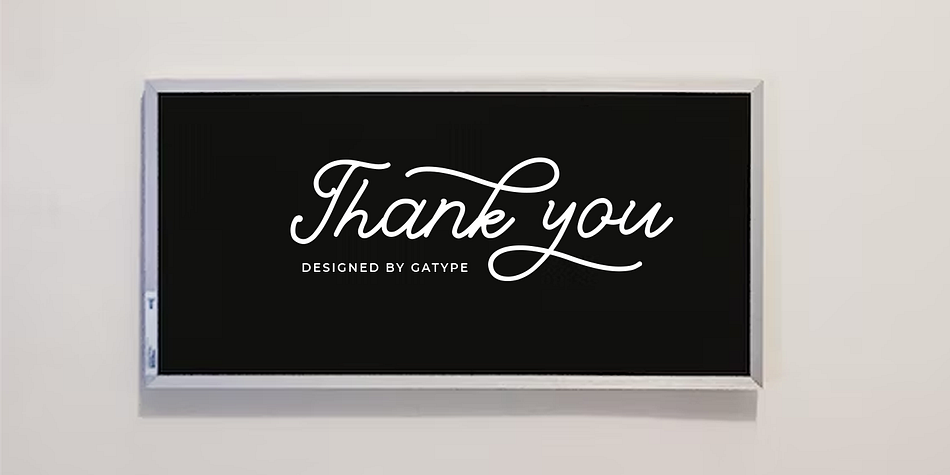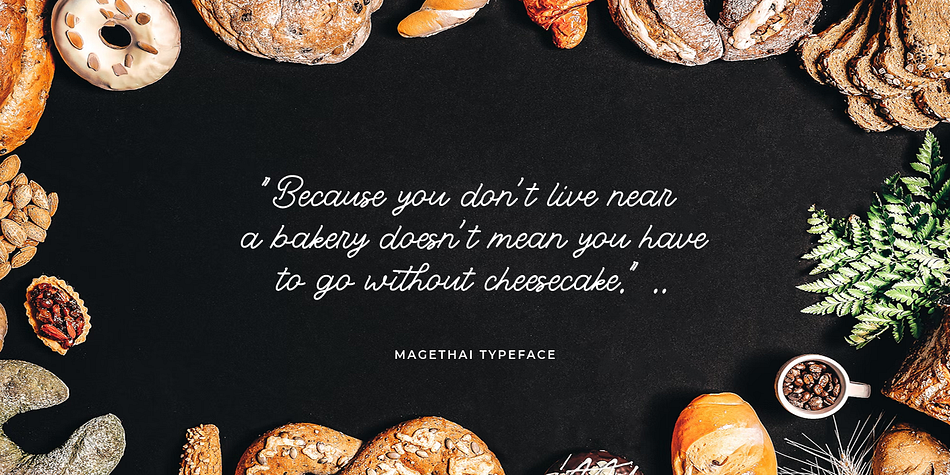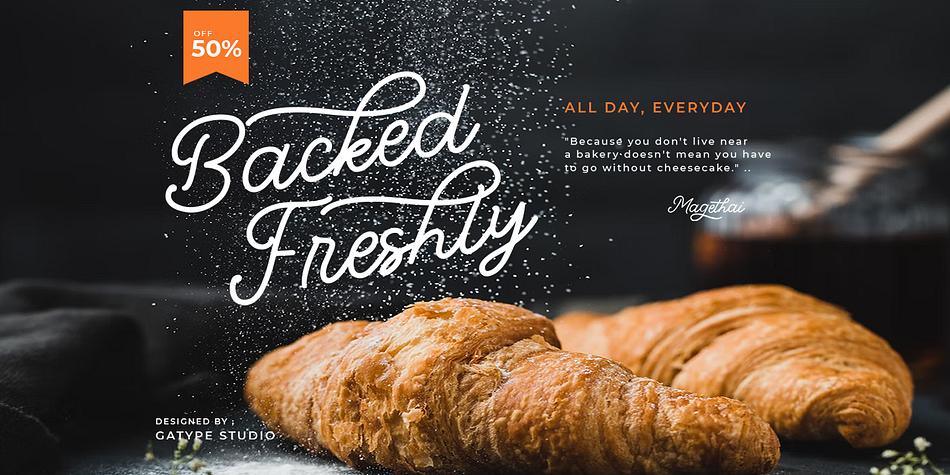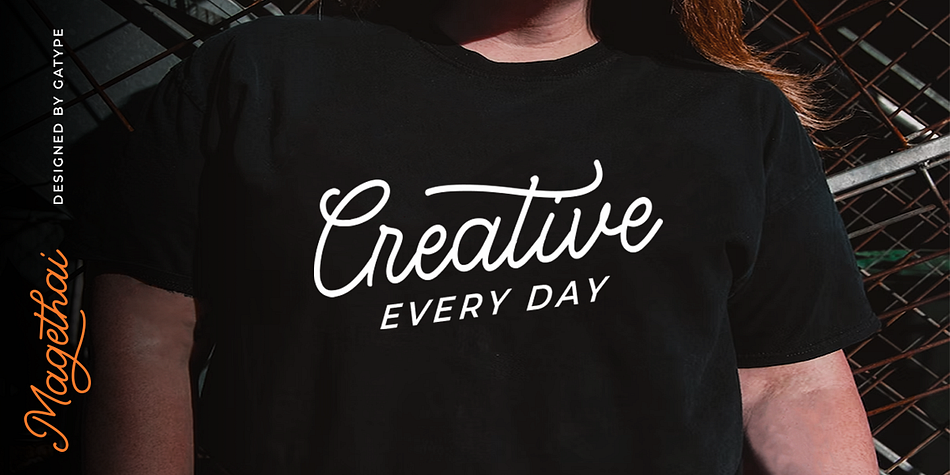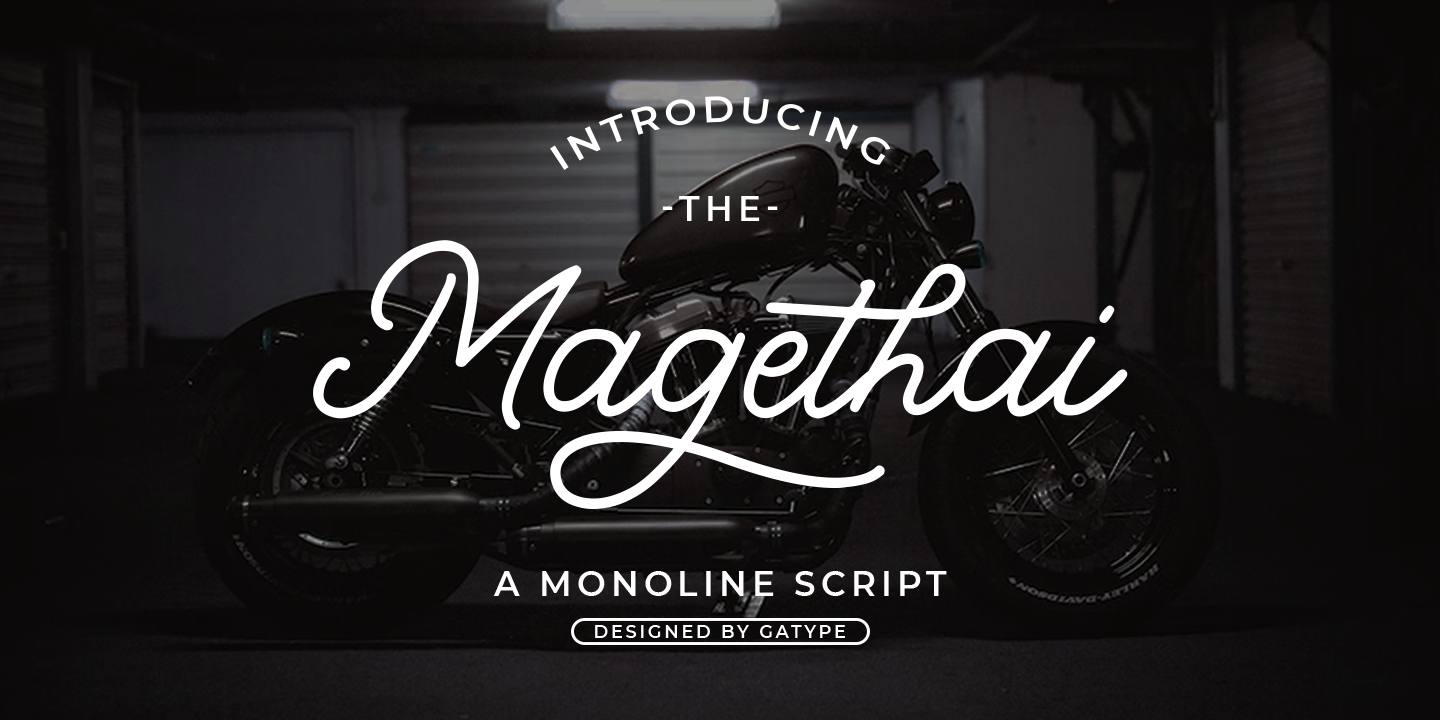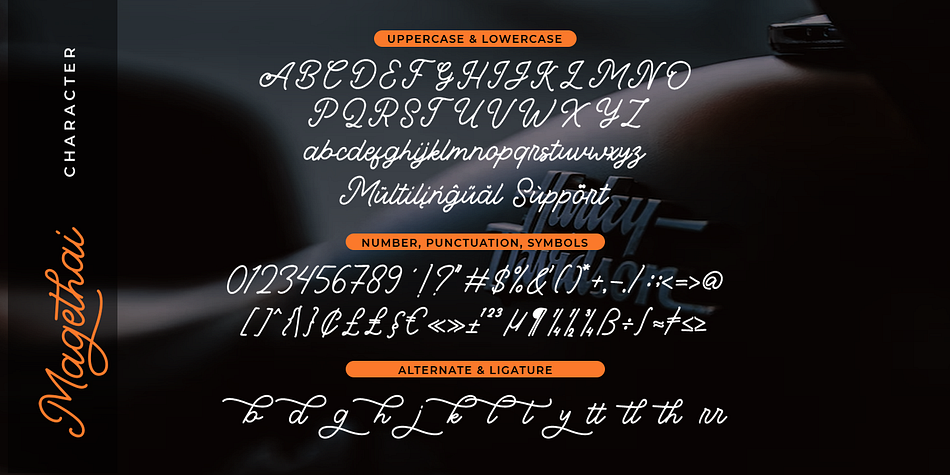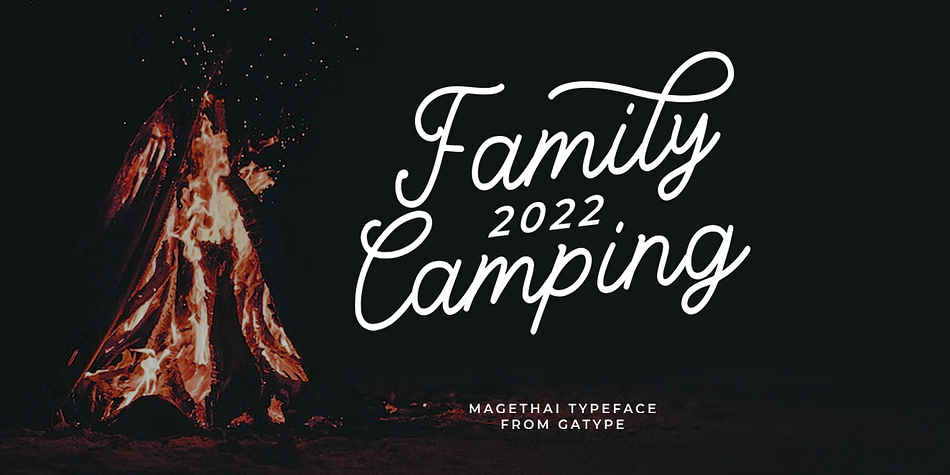
Magethai
Magethai is a script font family published by Gatype.
Magethai is a beautiful mono-line font, perfect for logo design, branding, apparel design, signage, posters, wedding invitations and more. My goal with this font was to create an easy-to-read script font that would work for a variety of purposes. Magethai are encoded with PUA Unicode, which allows full access to all additional characters without having to design special software. Mac users can use Font Book and Windows users can use Character Map to view and copy any additional characters to paste into your favorite text editor/application.